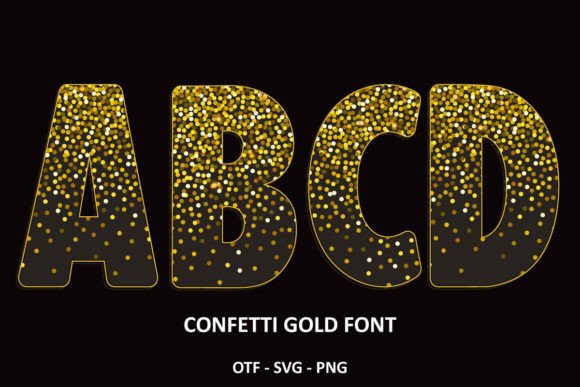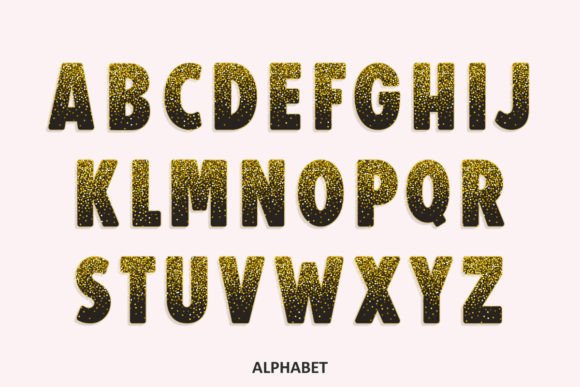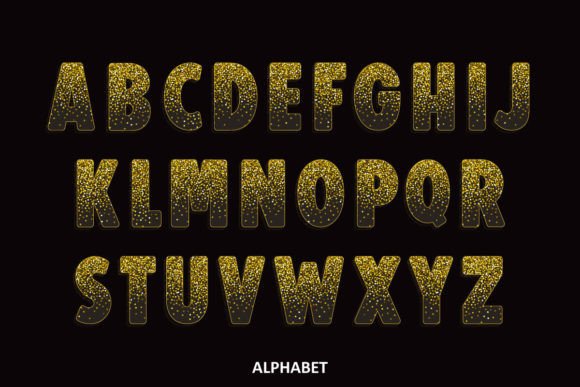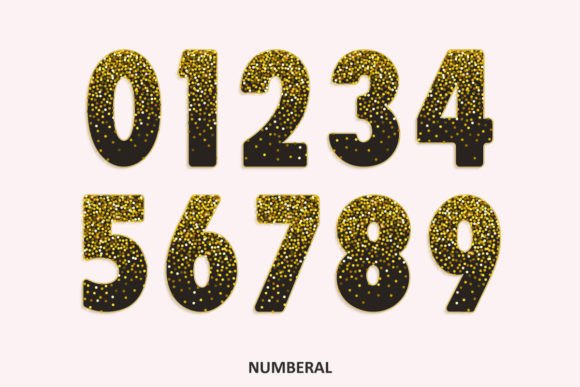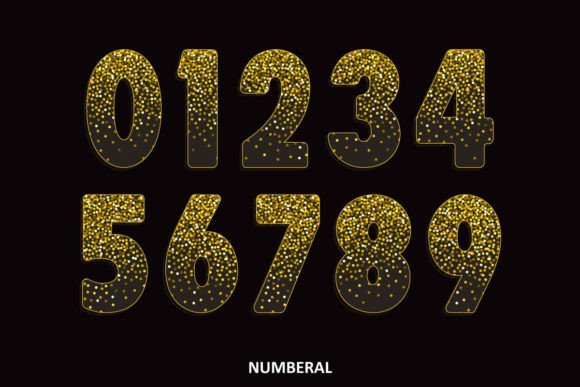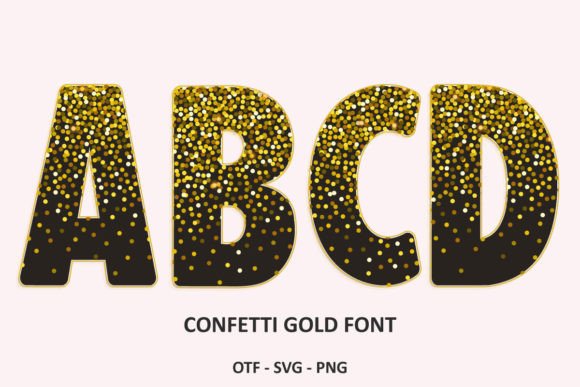
Introducing Confetti Gold Font: Elevate Your Designs with a Touch of Luxury
Are you getting ready to celebrate something special? Whether it’s a milestone birthday, a wedding, or a graduation, you want your designs to shine. That’s where the “Confetti Gold” font comes in – a classy and mesmerizing font that will add a spellbinding touch to your projects.
A Font that Shines like Gold
The Confetti Gold font is designed to twinkle and shine like gold confetti, adding a luxurious feel to your designs. Its unique and eye-catching style makes it perfect for a variety of projects, including logos, posters, websites, T-shirts, and more. With this font, you can add a confident and celebratory touch to your work, making it stand out from the crowd.
Tips for Using Confetti Gold Font
To get the most out of the Confetti Gold font, here are some tips:
- Use it for headings and titles to add a touch of luxury and celebration to your designs.
- Pair it with a simple font for body text to create a beautiful contrast.
- Experiment with different colors and textures to make the font shine.
- Use it for branding and marketing materials to add a touch of sophistication.
Why Choose Confetti Gold Font?
So why choose the Confetti Gold font for your designs? Here are just a few reasons:
- Unique and eye-catching style that adds a touch of luxury.
- Versatile and compatible with a range of design software and cutting machines.
- Perfect for celebrations and special occasions.
- Easy to use and customize.
In conclusion, the Confetti Gold font is a stunning and versatile font that’s perfect for designers and crafters. With its mesmerizing shine and luxurious feel, it’s sure to elevate your designs and add a touch of celebration. Whether you’re creating logos, posters, websites, or T-shirts, this font is sure to impress.